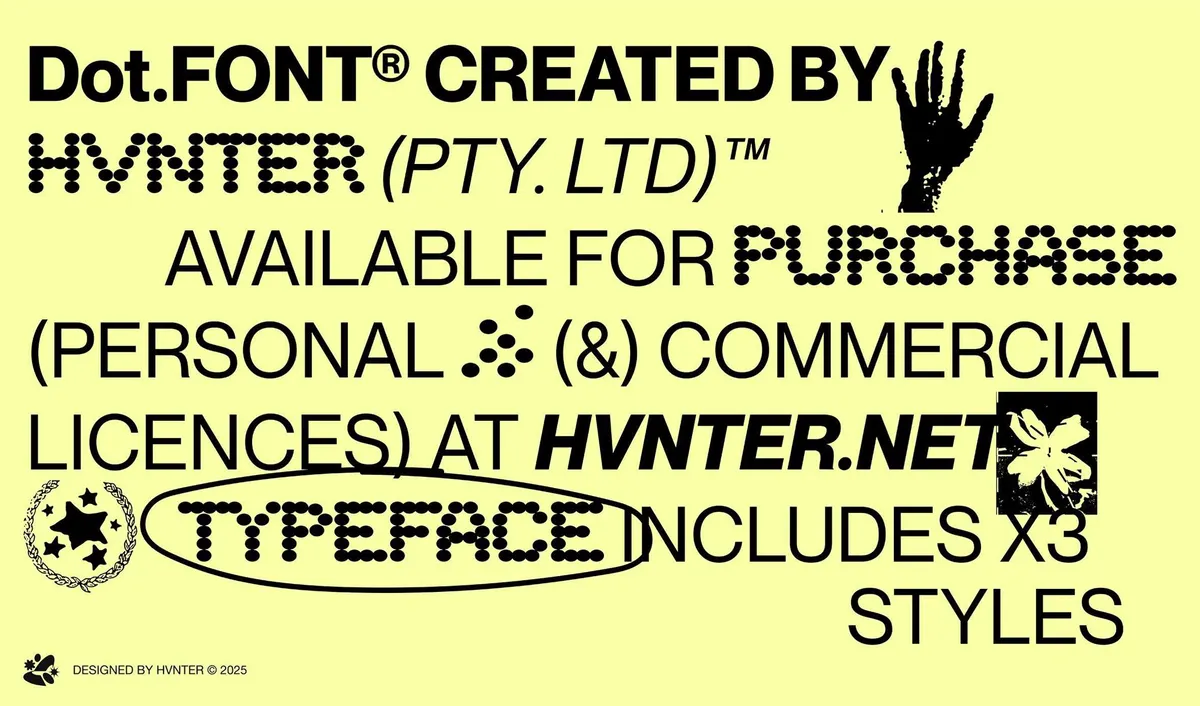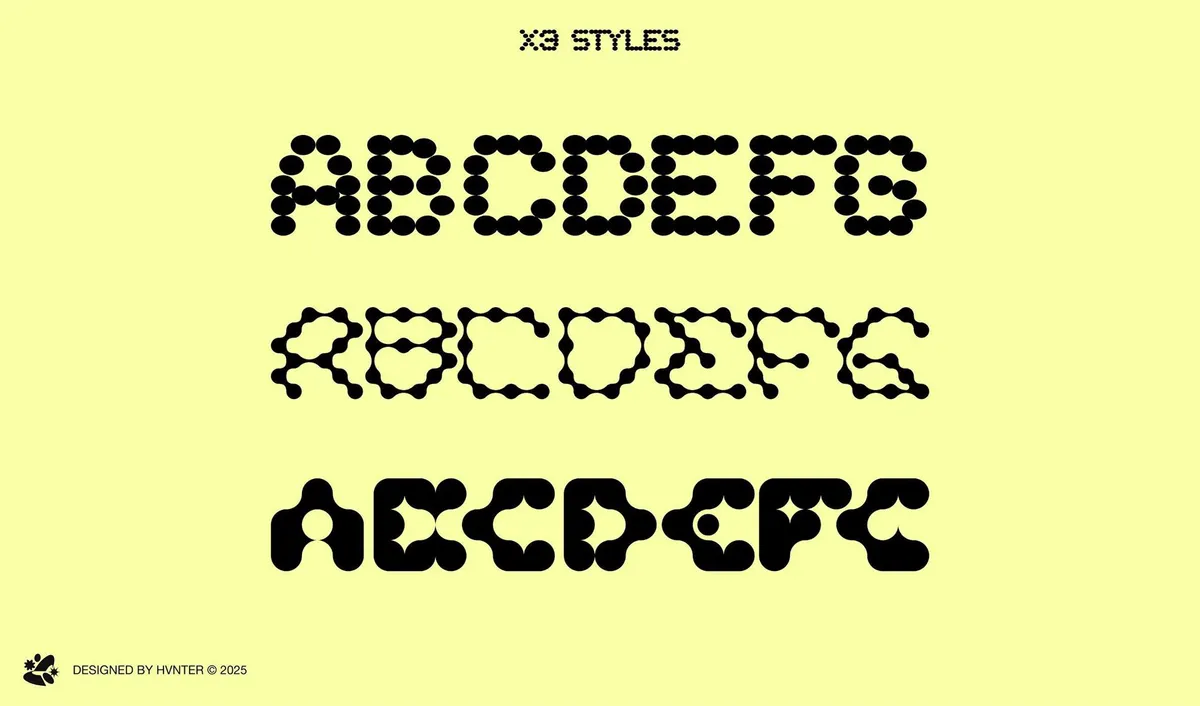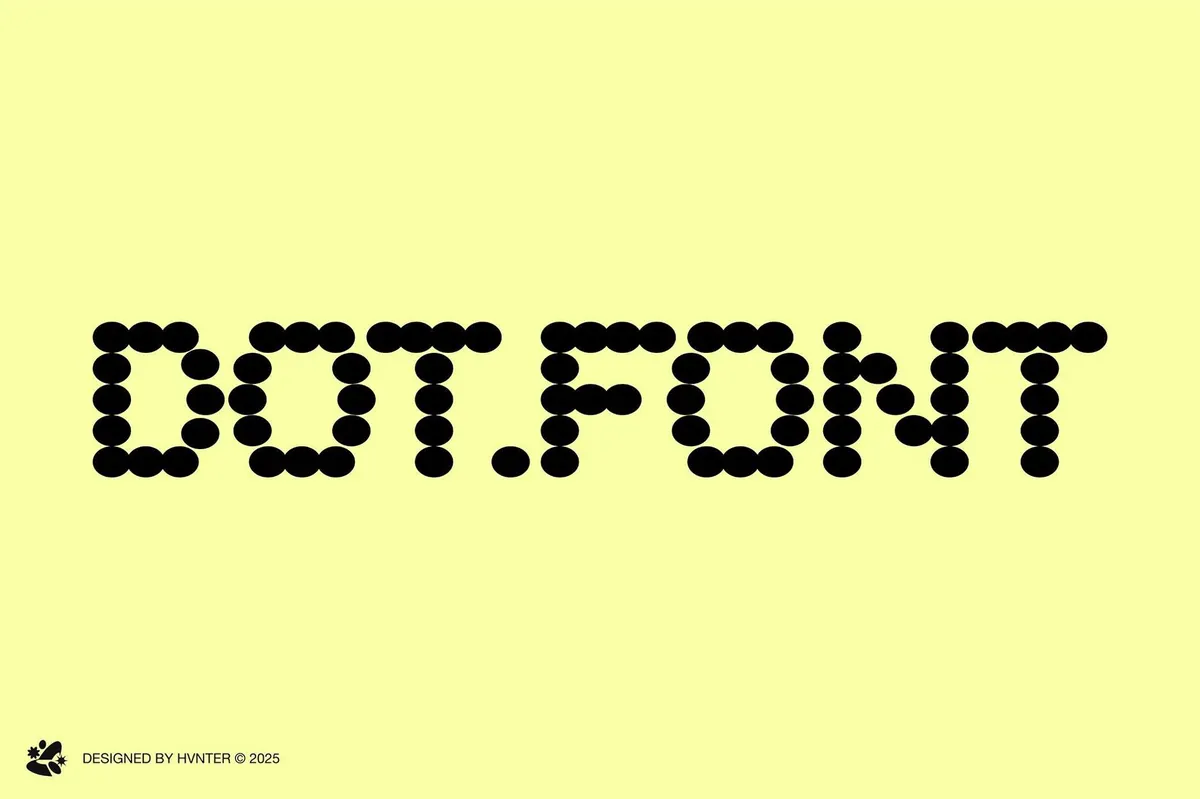
Dot.Font
Dot.Font calls back to LED signage, bitmap type, Braille, and sci-fi schematics. Despite the restraint of the dot grid, it delivers high-impact letterforms. Three styles are provided: Regular (uniform, unconnected dots), Chubby (blobby, amorphous chunks), and Skinny (dots are interconnected with slim ligatures). The font is all-caps with a standard glyph set. Perfectly suited for experimental design systems, album covers, festival branding, techno and electronic music posters, generative or AI-adjacent projects, neo-retro and anti-corporate branding work.